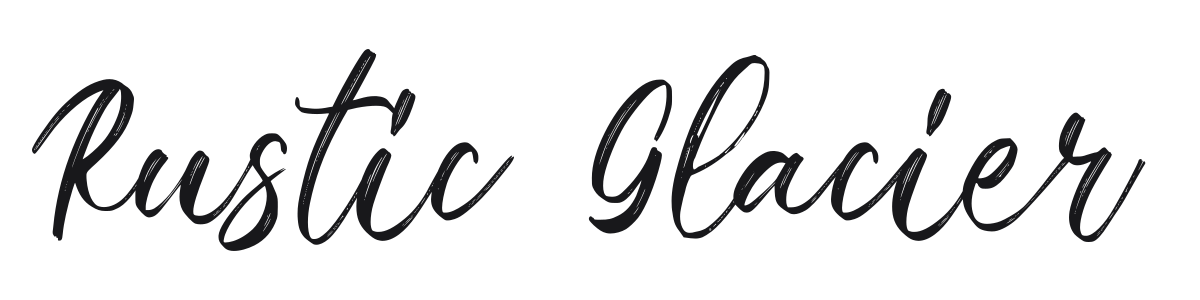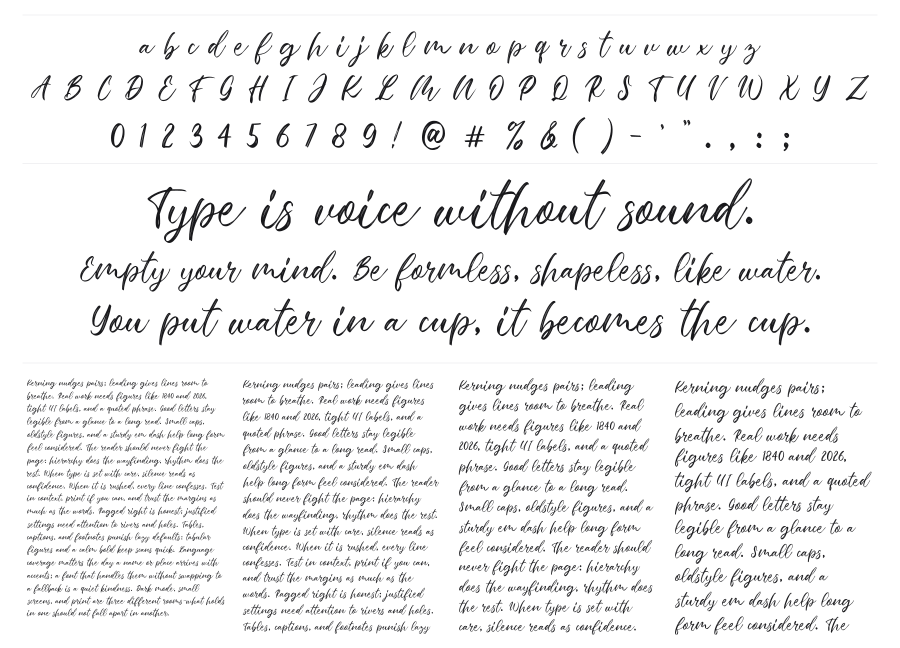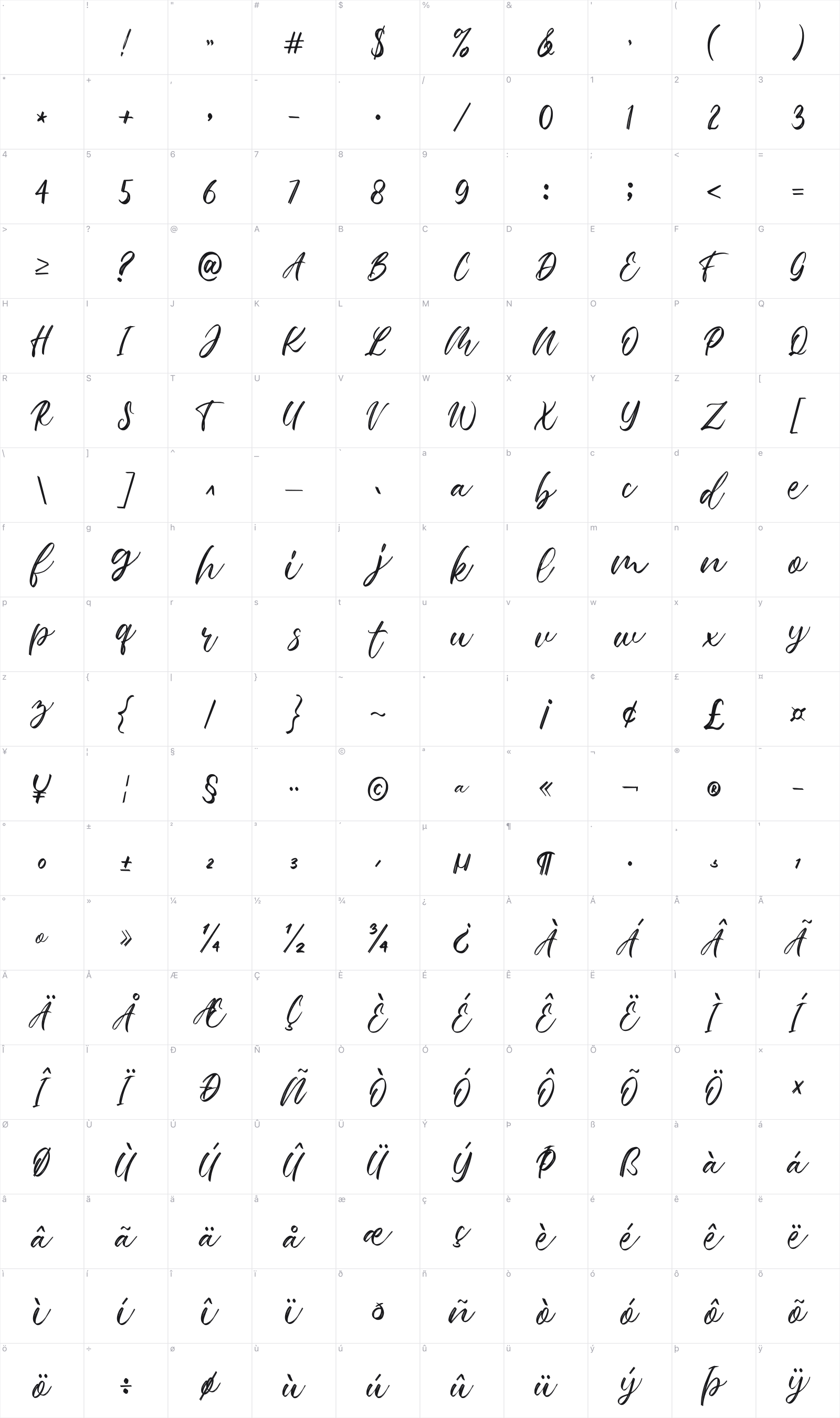
Rustic Glacier
Rustic Glacier is a contemporary brush script with high stroke contrast and visible bristle texture that gives it a genuinely hand-painted feel. Exaggerated ascenders, sweeping connective strokes, and a lively bouncing baseline keep the rhythm energetic without tipping into chaos. It works well on packaging, social media graphics, and branding where warmth and a handcrafted quality matter.